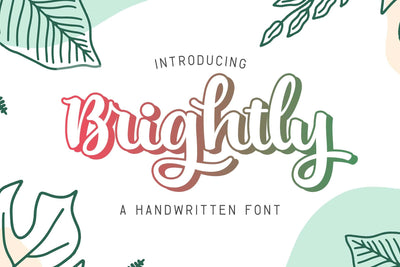
Brightly
Brightly is a fancy, professional, and cursive script font. Carefully and neatly designed, this typeface will make your creation more assertive and attractive. It is perfect for headlines, logos, crafts, and all kinds of apparel and merch projects.